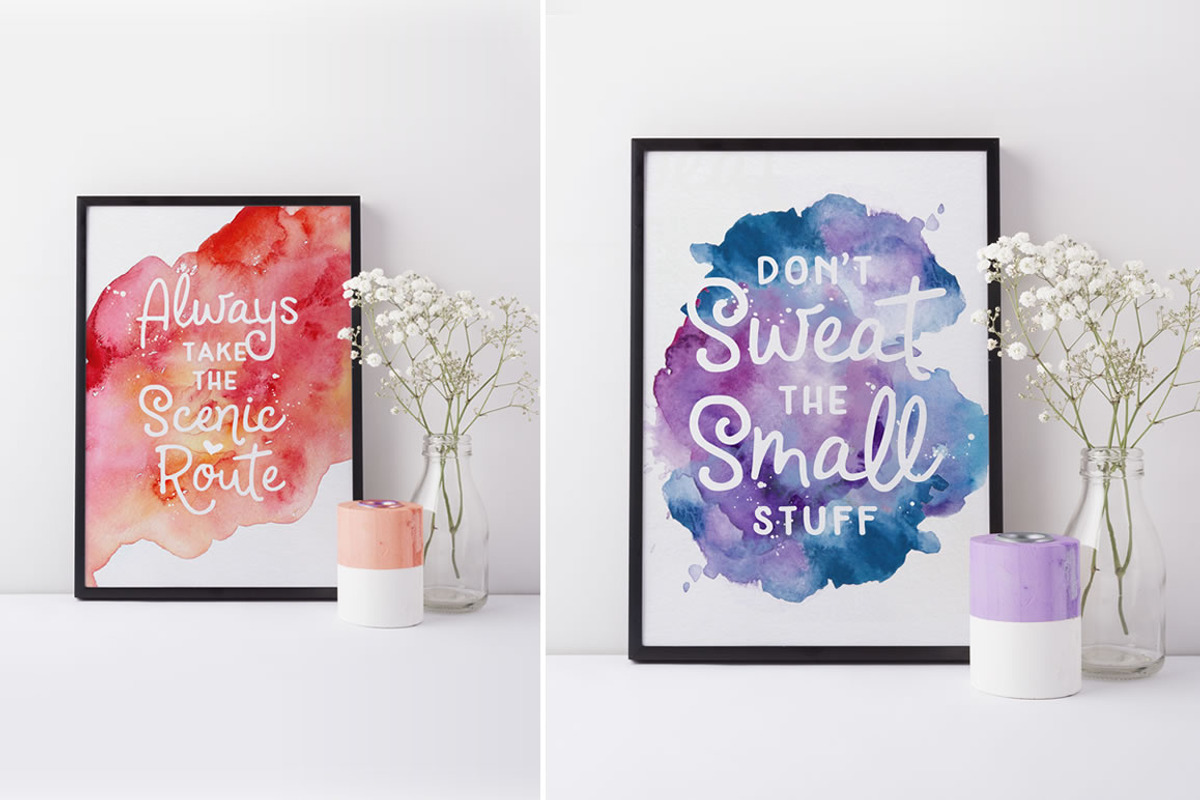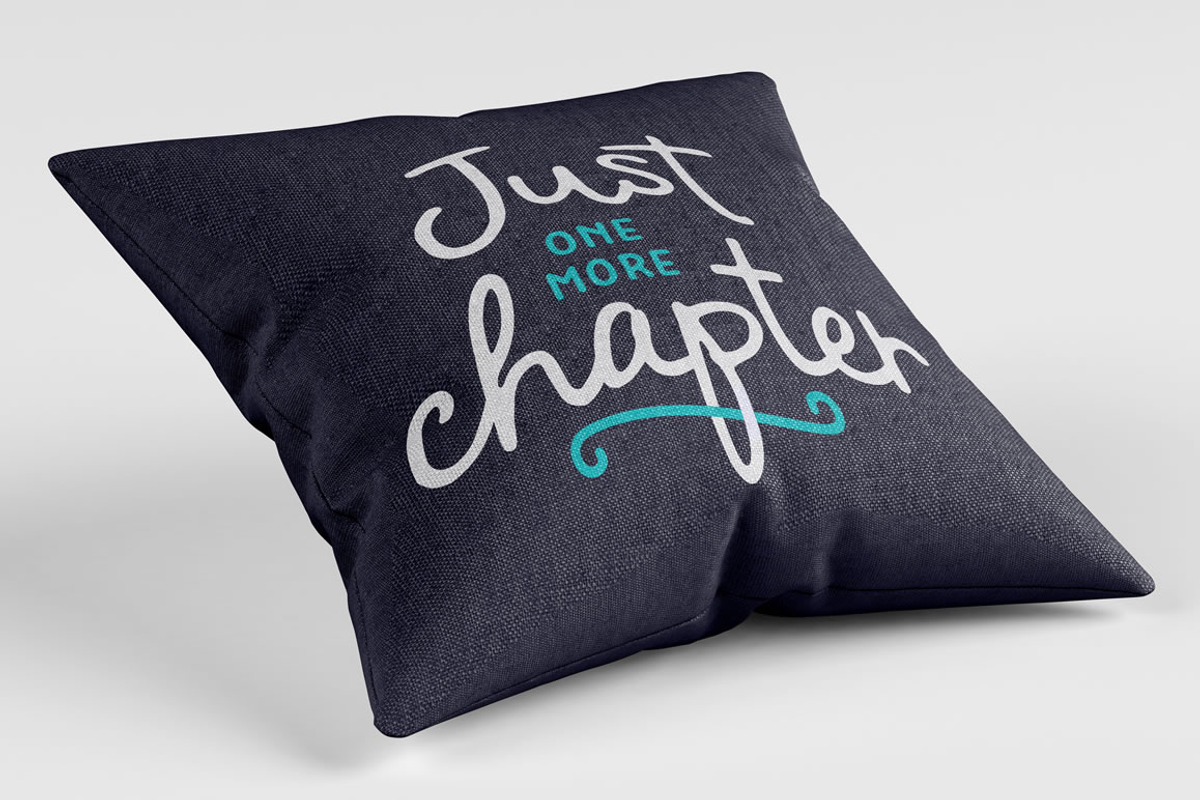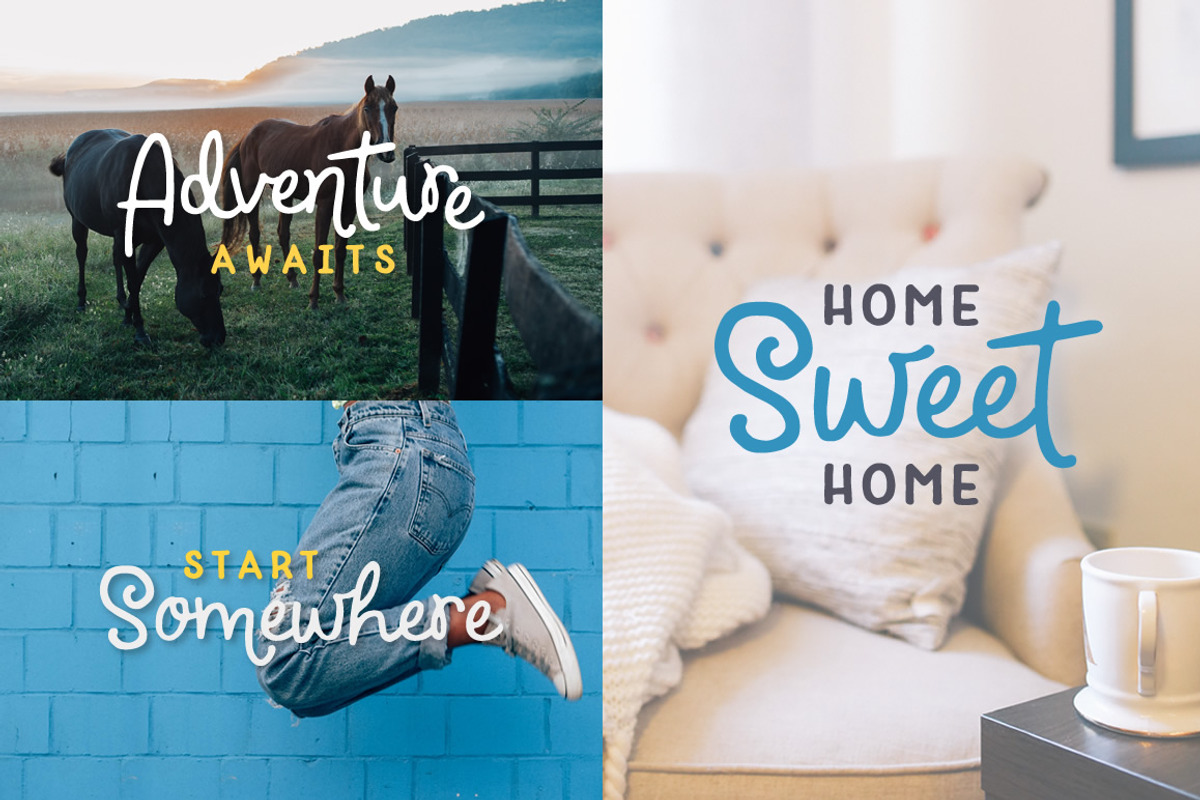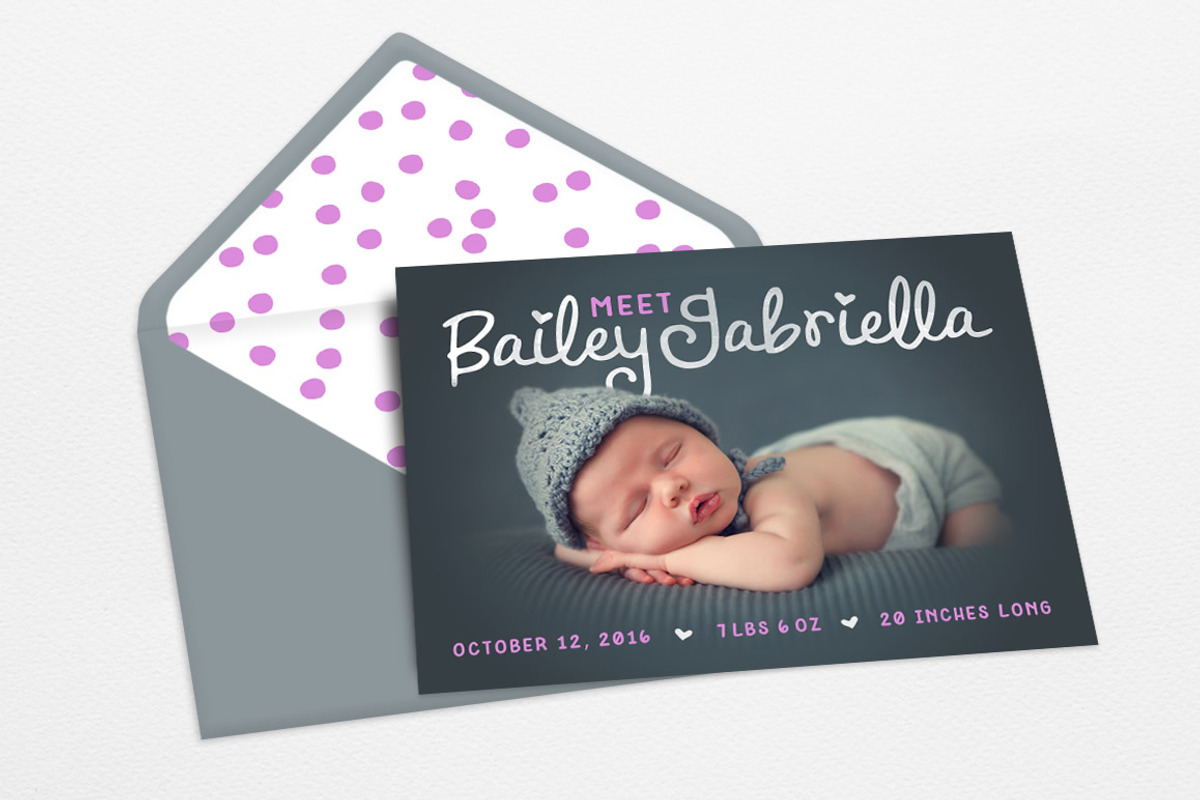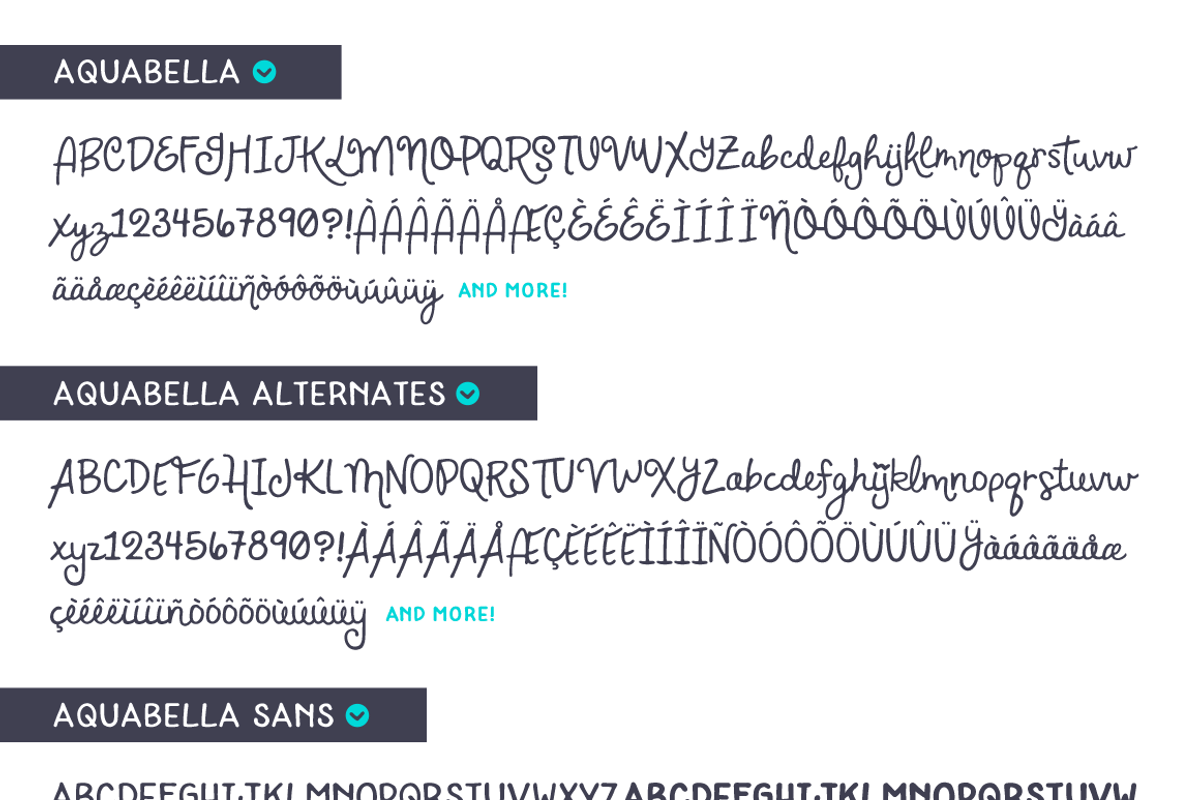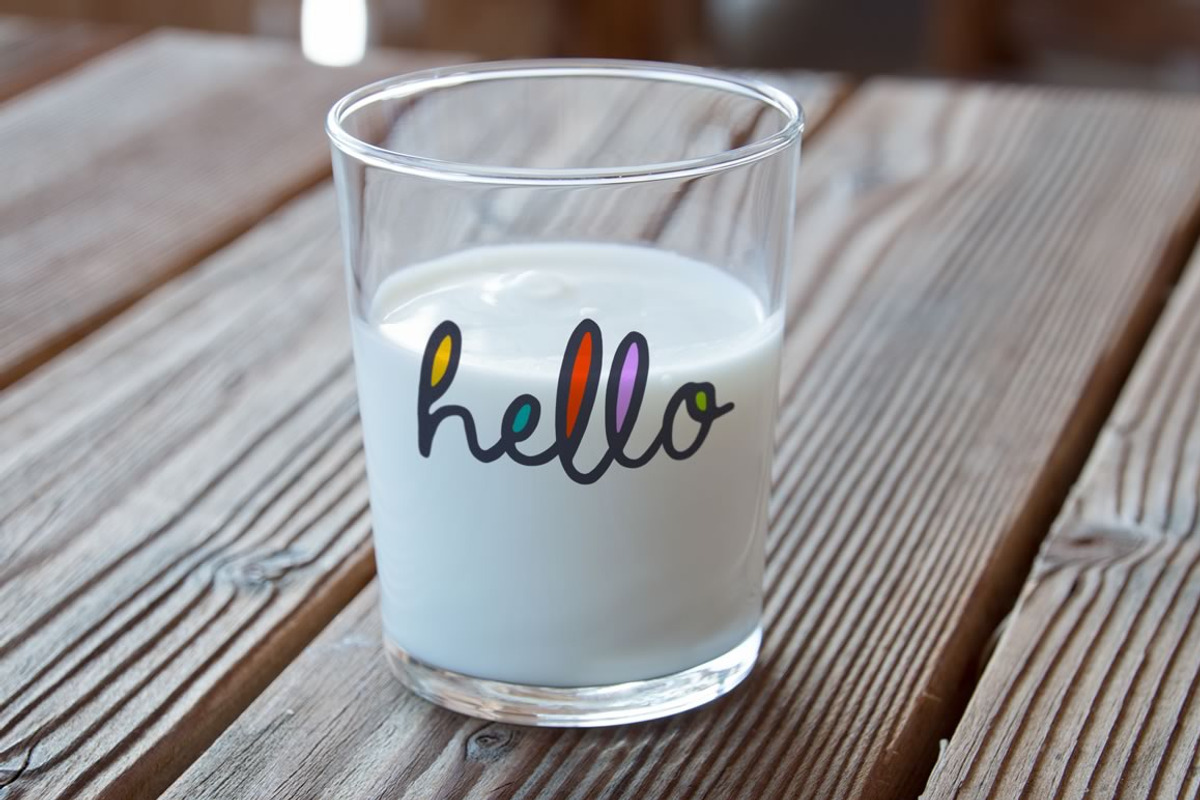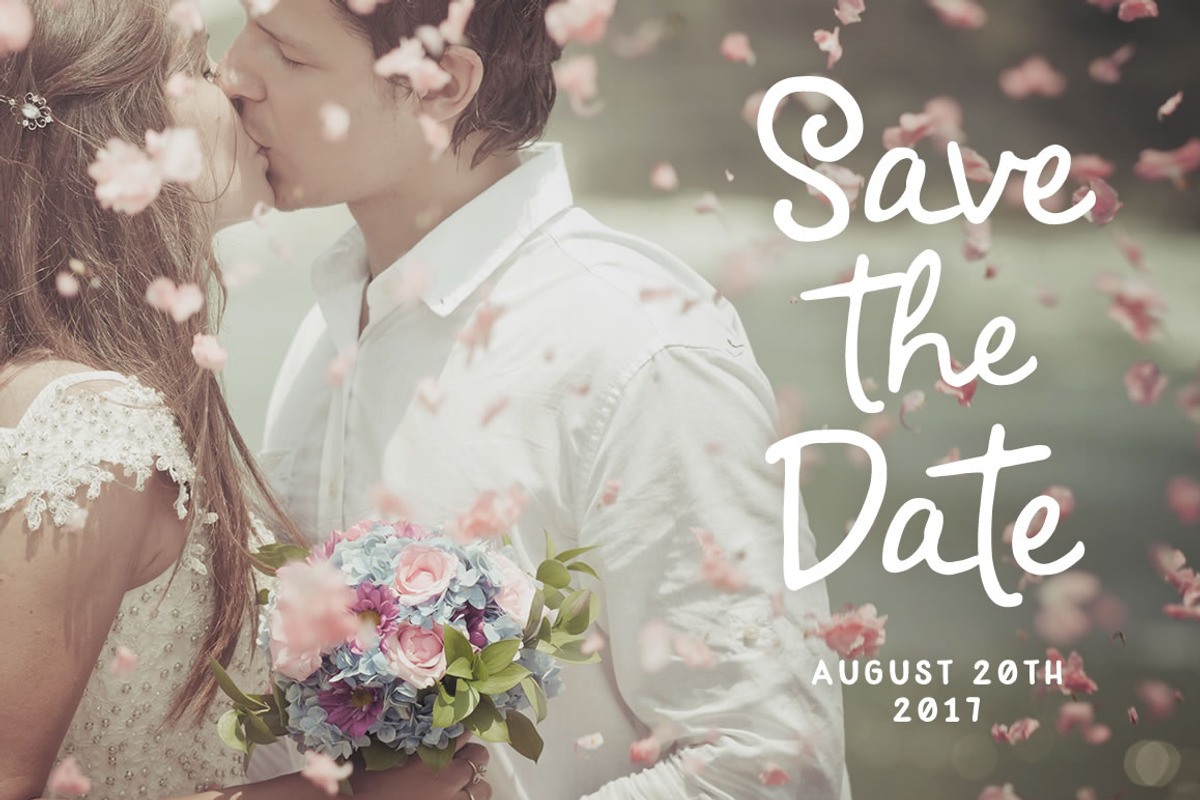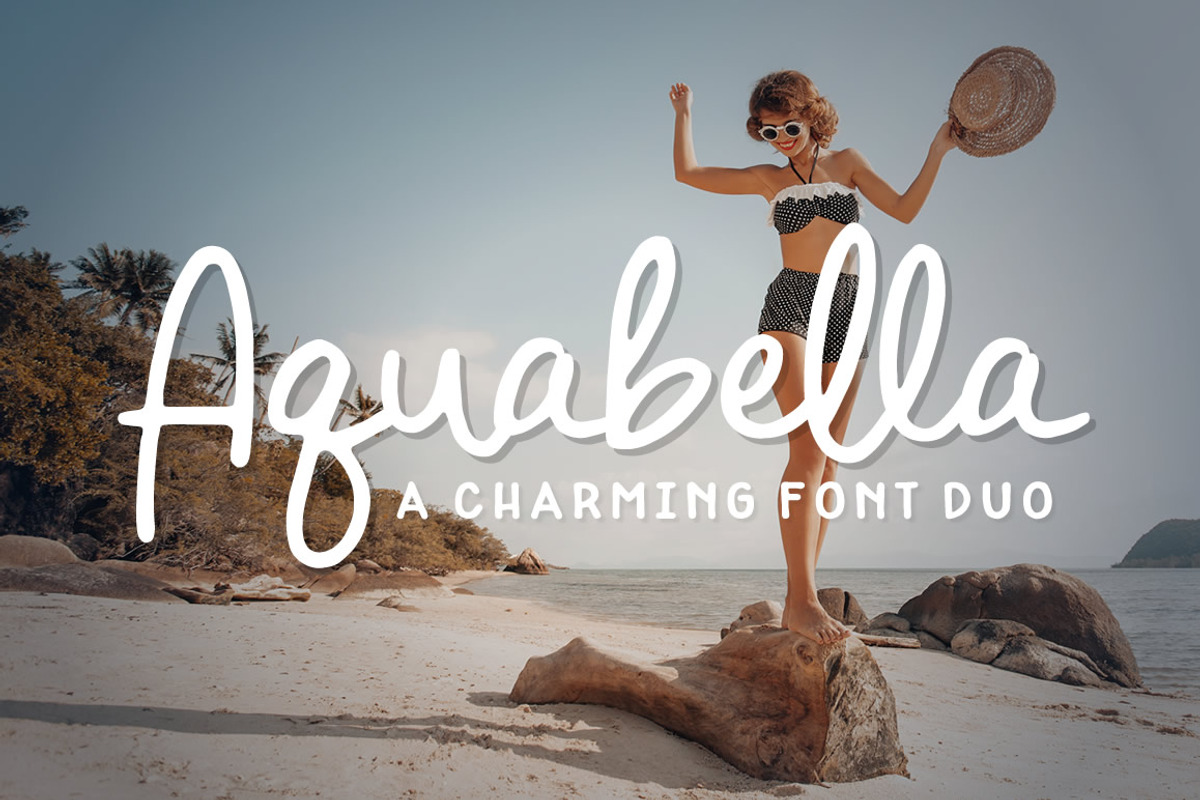
Aquabella Font Duo
Aquabella Font Duo by Denise Chandler is a font selected for branding, posters, packaging, typography.
- Aquabella Sans includes uppercase letters in regular and bold weights (bold variation is accessed using lowercase letters on the keyboard).
- Also included is a set of alternate uppercase and lowercase characters that you can mix and match with the original Aquabella font to help c
Aquabella Font Duo by Denise Chandler fits naturally into Branding, posters, packaging, typography.